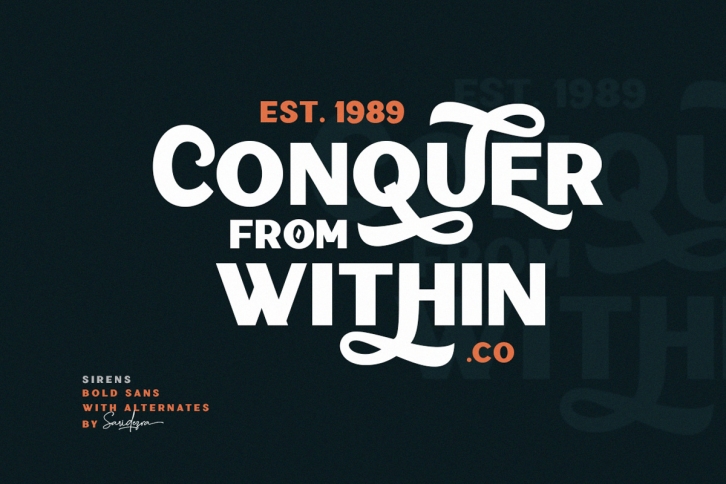
Sirens is a great font that was designed by Saridezra. Imagine the amount of combinations you can create using this font! The archive is 20.91 MB and it was released on October 30, 2018. Sirens looks beautiful on wedding invitations, greeting cards, logos, posters, labels, t-shirt designs, logos, business cards and is perfect for use in ink or watercolor works, fashion, magazines, packaging and food menus, children's books and more!